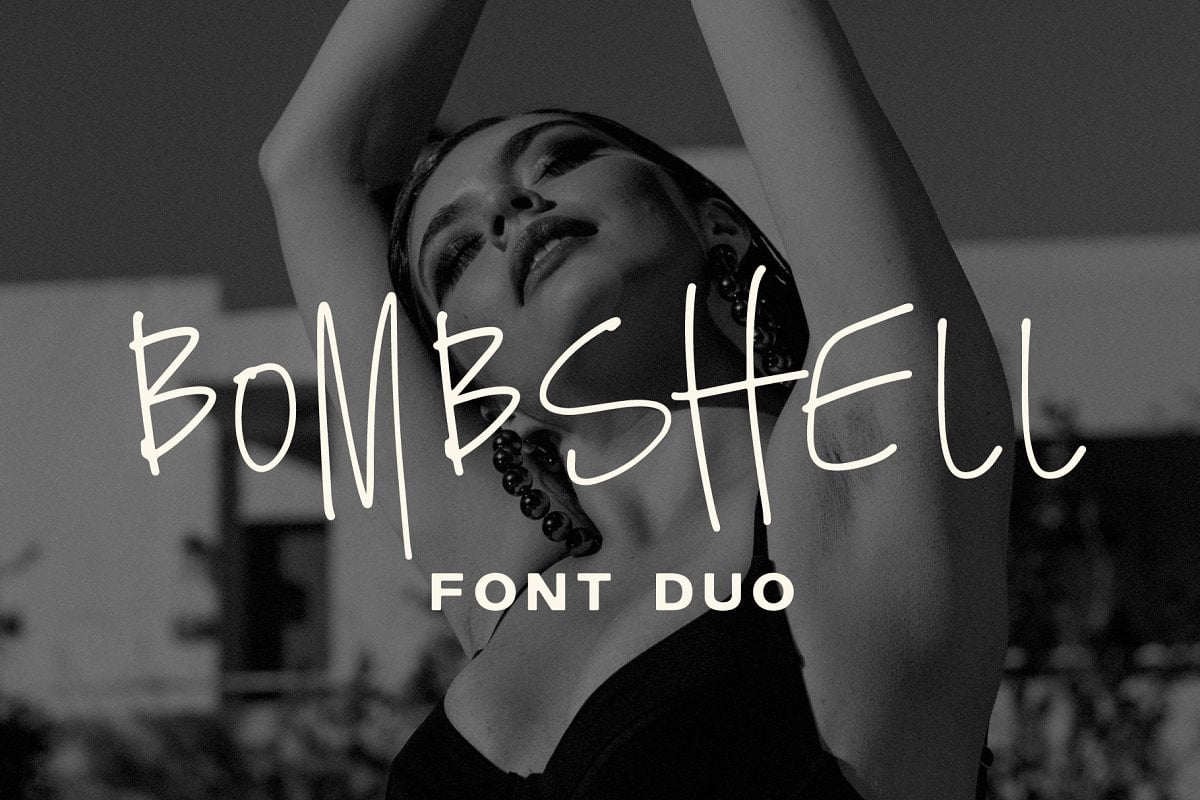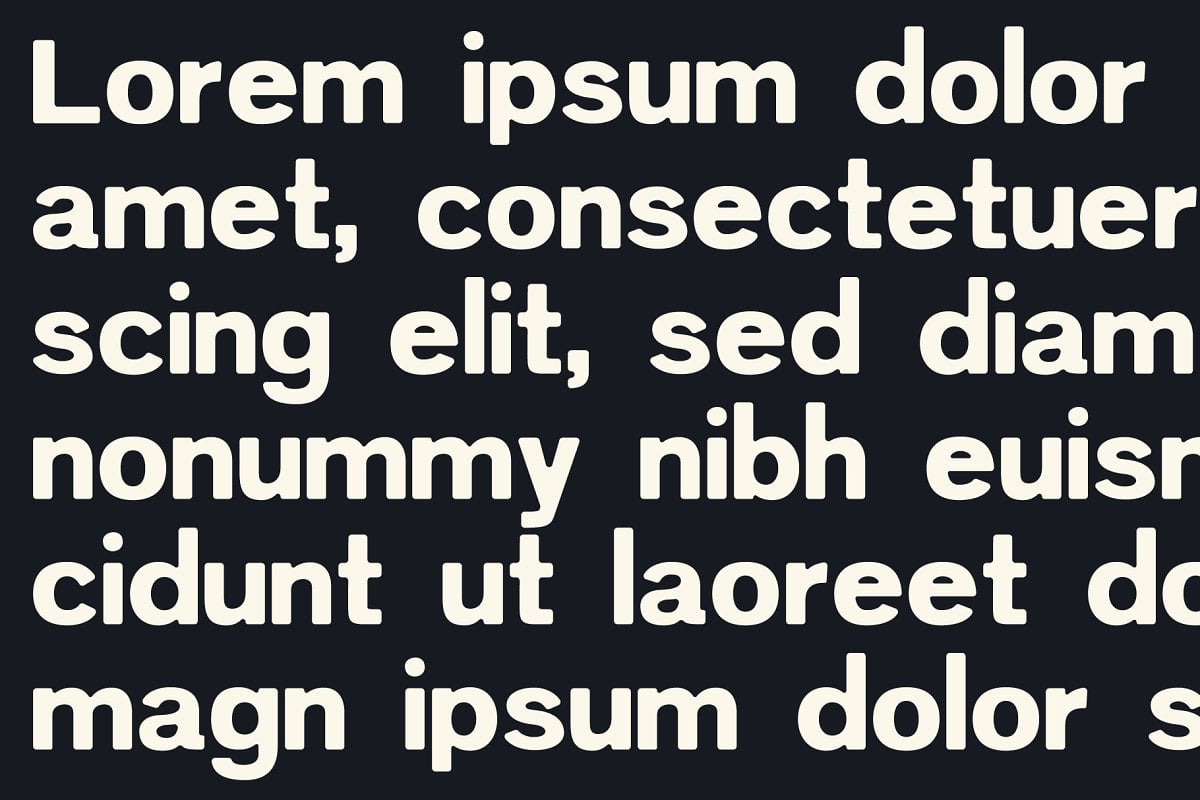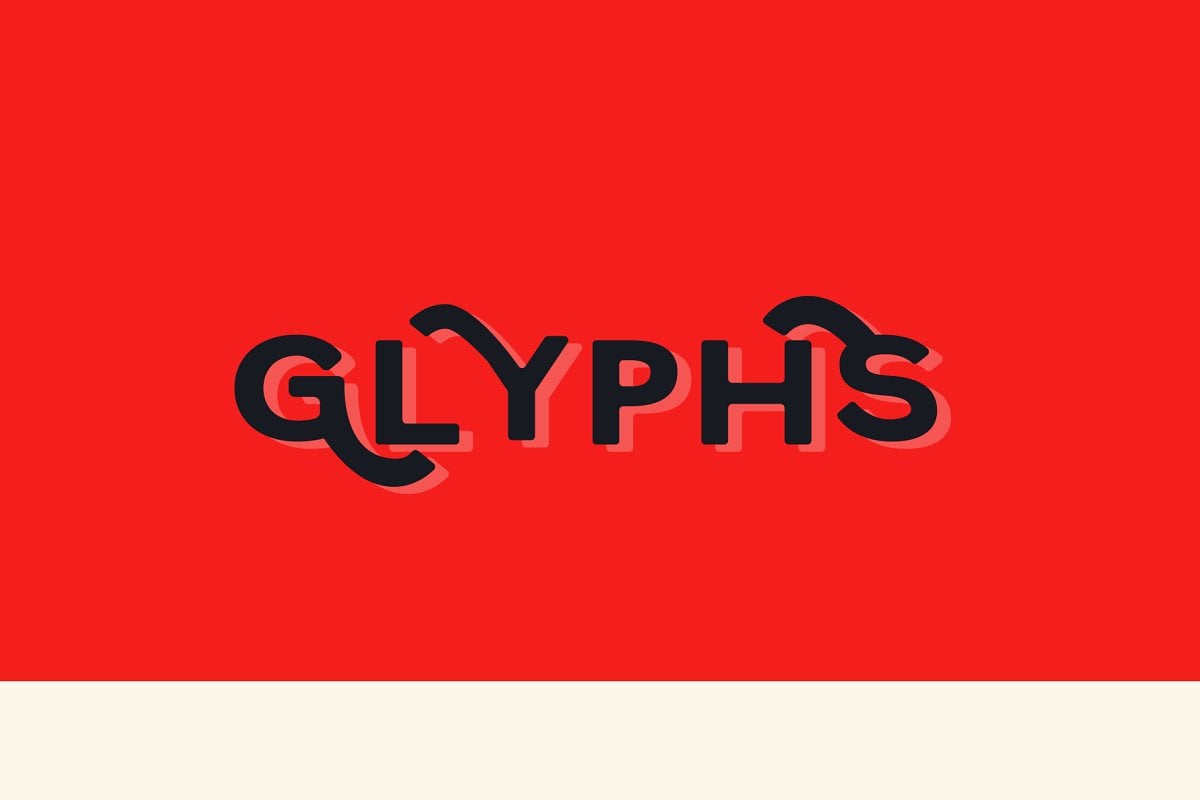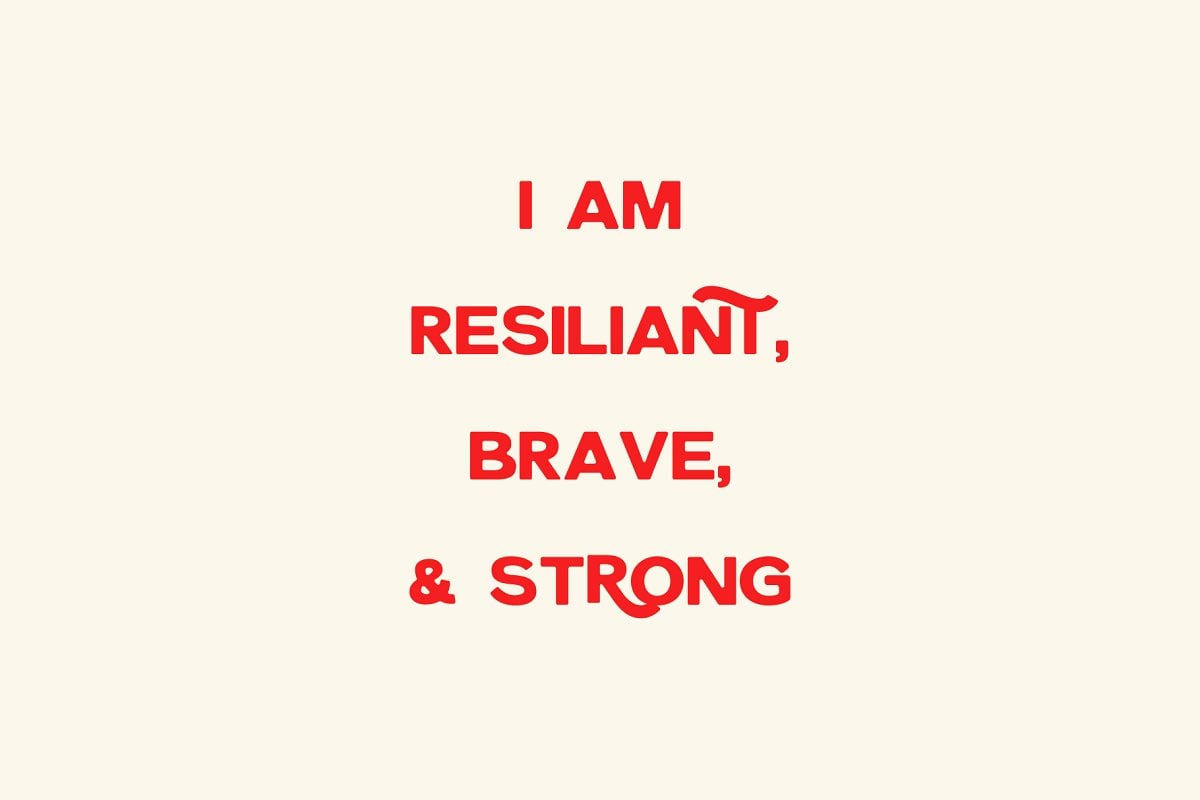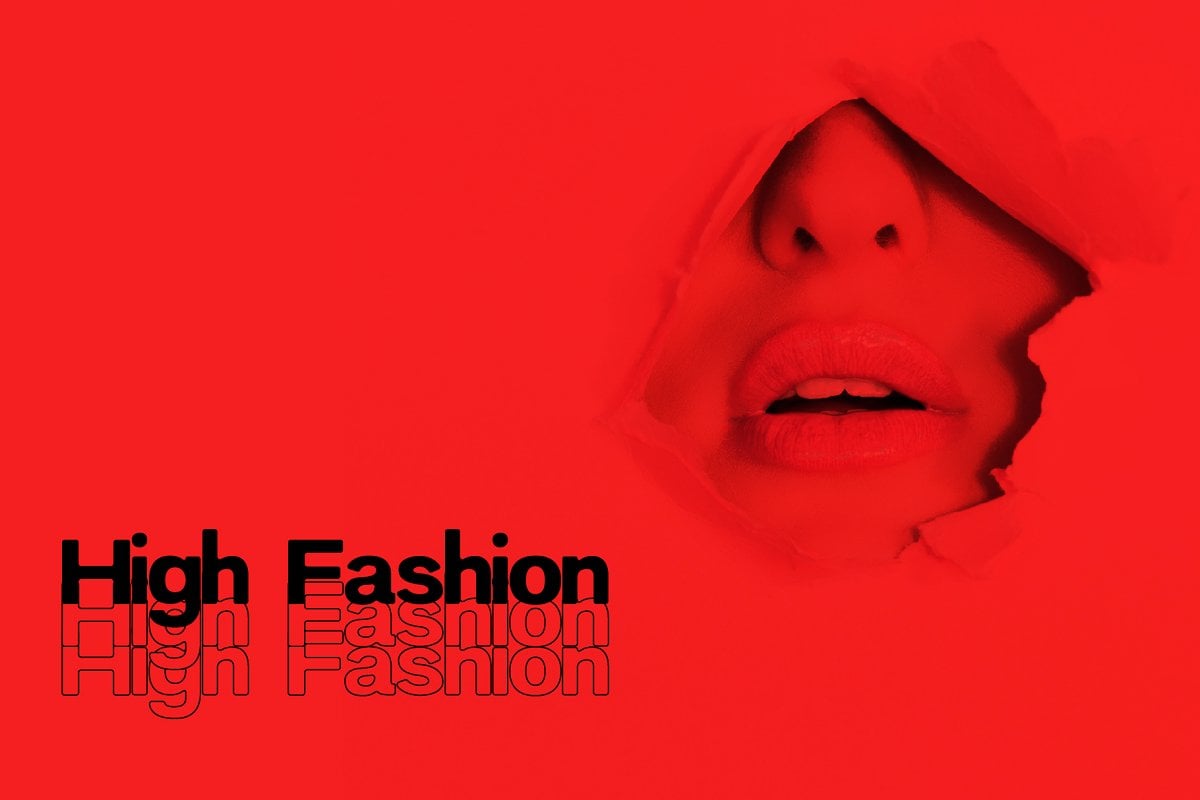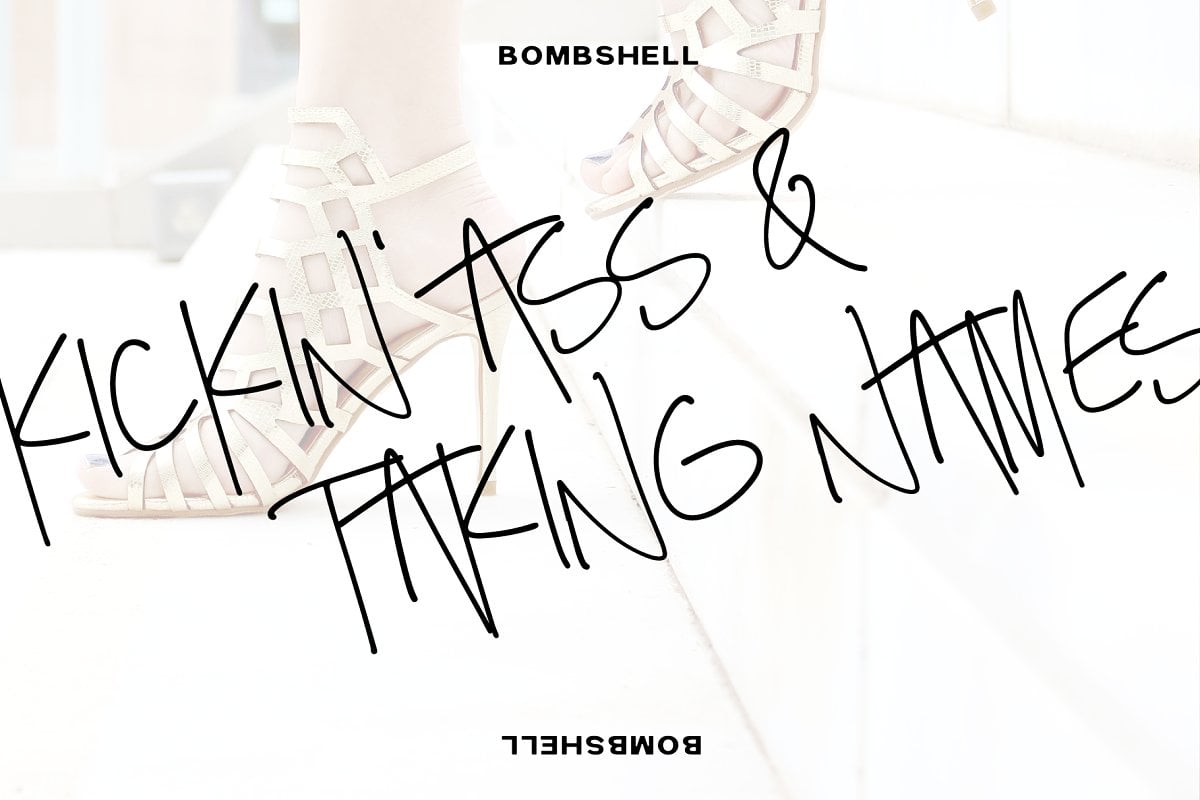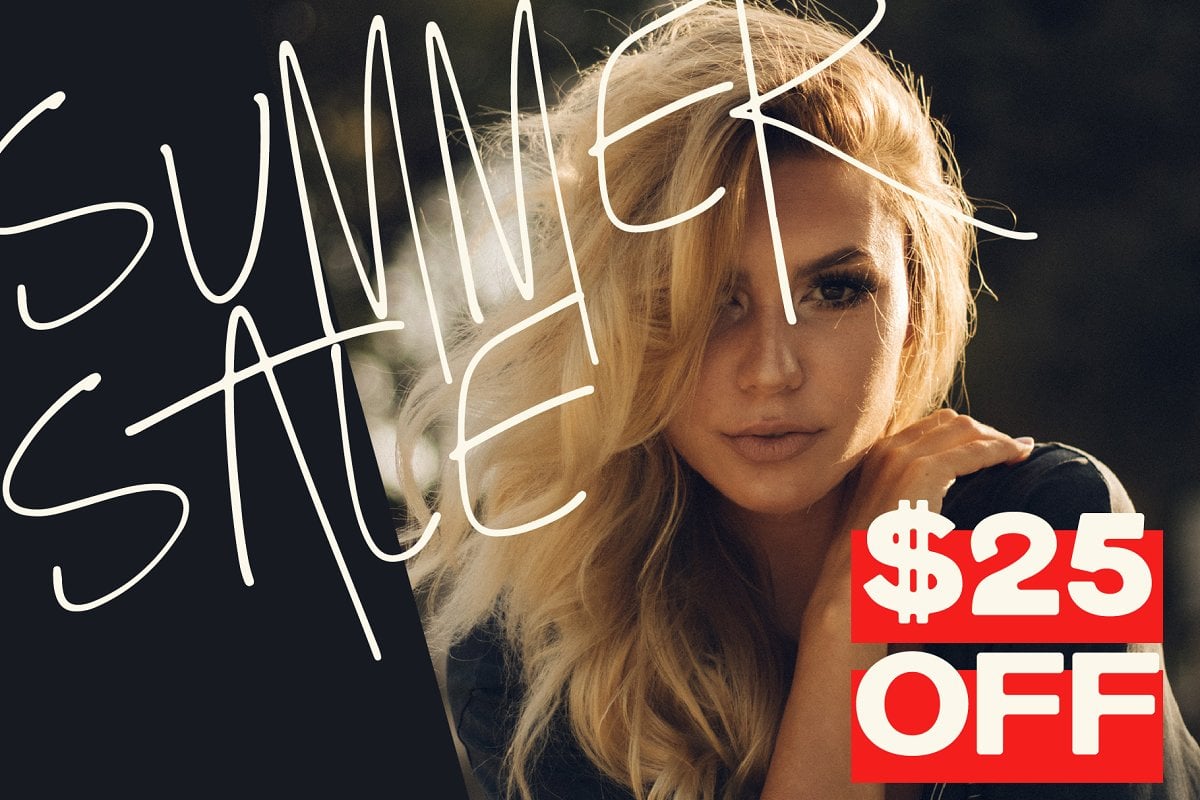
Bombshell Font Duo
High Fashion, High Fun – Bombshell Font Duo creates powerful, modern, and vibrant designs. Standalone or together, Bombshell + Bombshell Script have been carefully crafted and include additional glyphs, ligatures, accents, and punctuation.